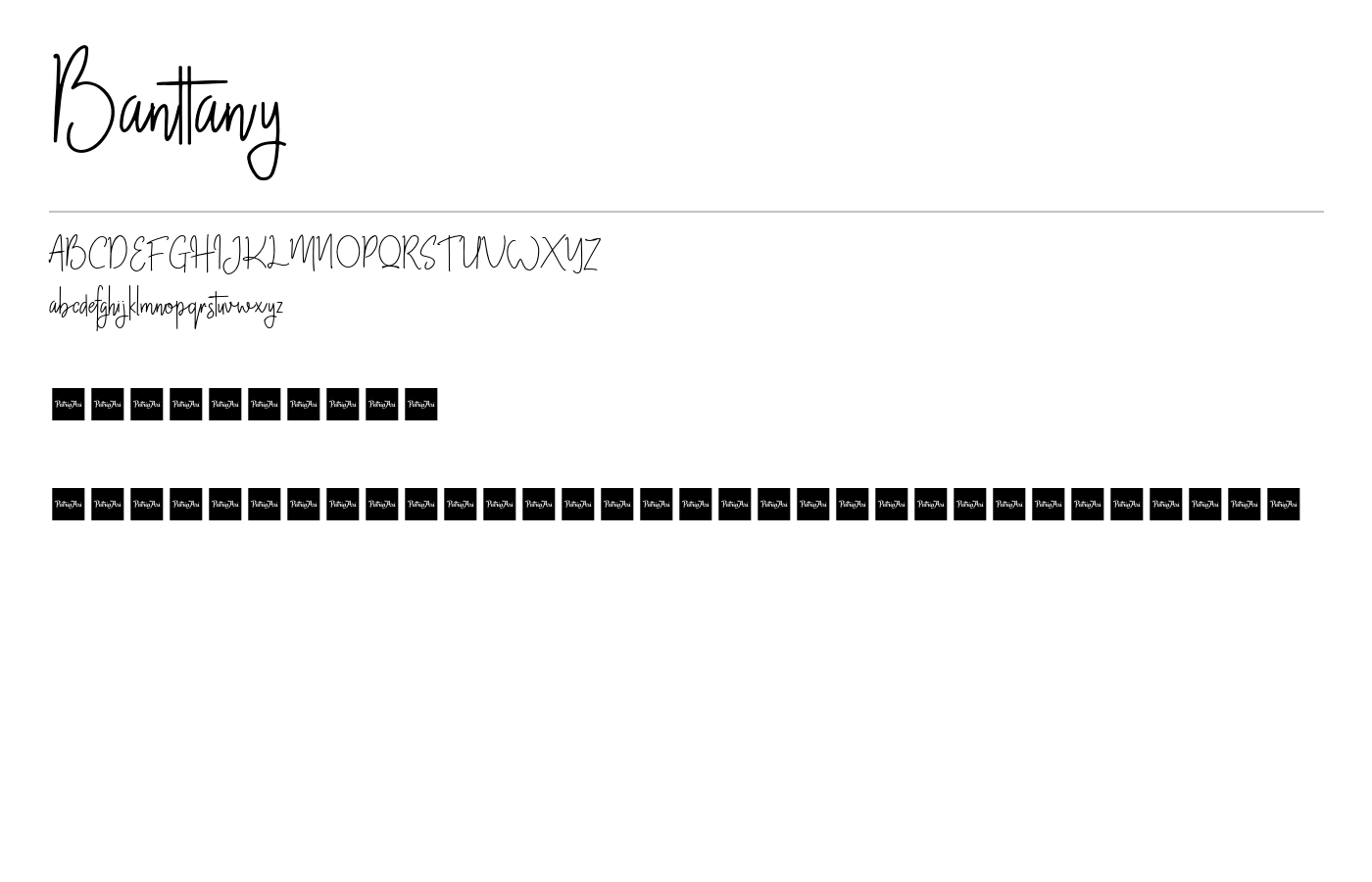
Banttany Font is a delicate and elegant handwritten script featuring slender, flowing letterforms that evoke a personal, intimate feel. Its tall, narrow characters with a casual yet refined style make it ideal for invitations, branding, and creative projects looking to convey warmth and sophistication. This font works beautifully in designs that require a touch of elegance without losing a friendly, approachable vibe.
Banttany Font
About Banttany Font
| Font family | Banttany Font |
| Designer | Patria Ari Wijonarko |